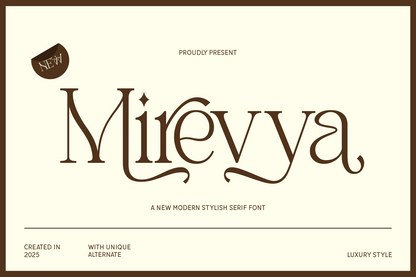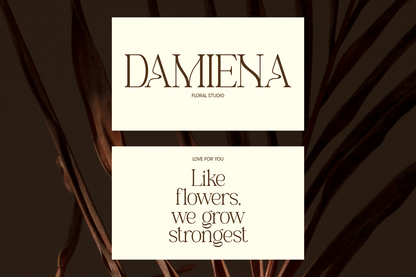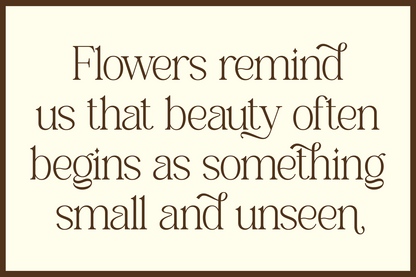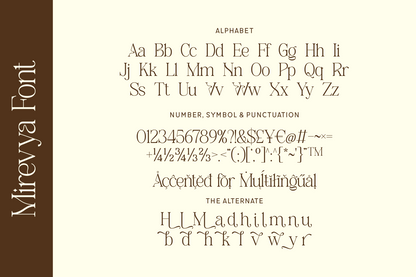
Mirevya is a modern stylish serif font with distinctive curves and luxurious details. Its carefully designed alternates and playful swashes create a graceful motion across the page, making it perfect for upscale branding, elegant logos, and chic editorial layouts. Every letter flows with sophistication, offering a timeless feel with a touch of modern charm.
Designed for those who love refinement, Mirevya blends classic beauty with creative artistry. Whether used for invitations, cosmetics packaging, or fashion campaigns, this font adds a personalized, high-end look to any project.